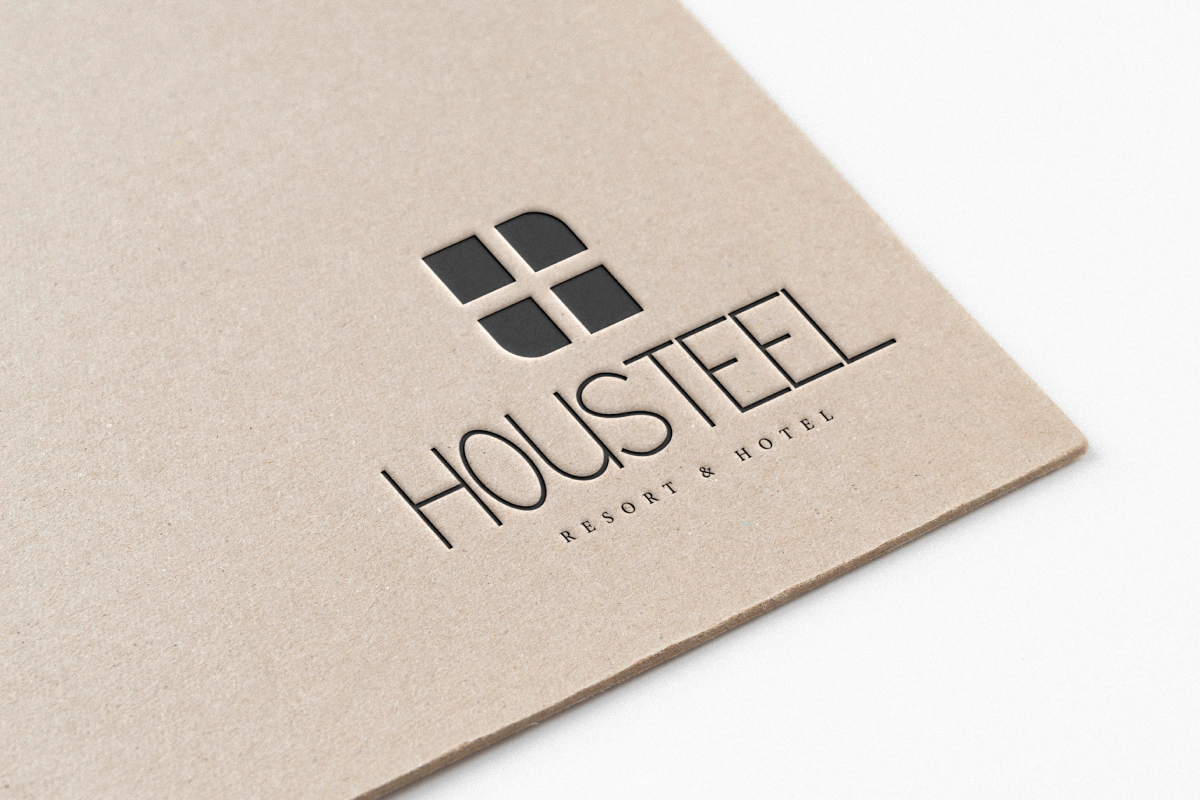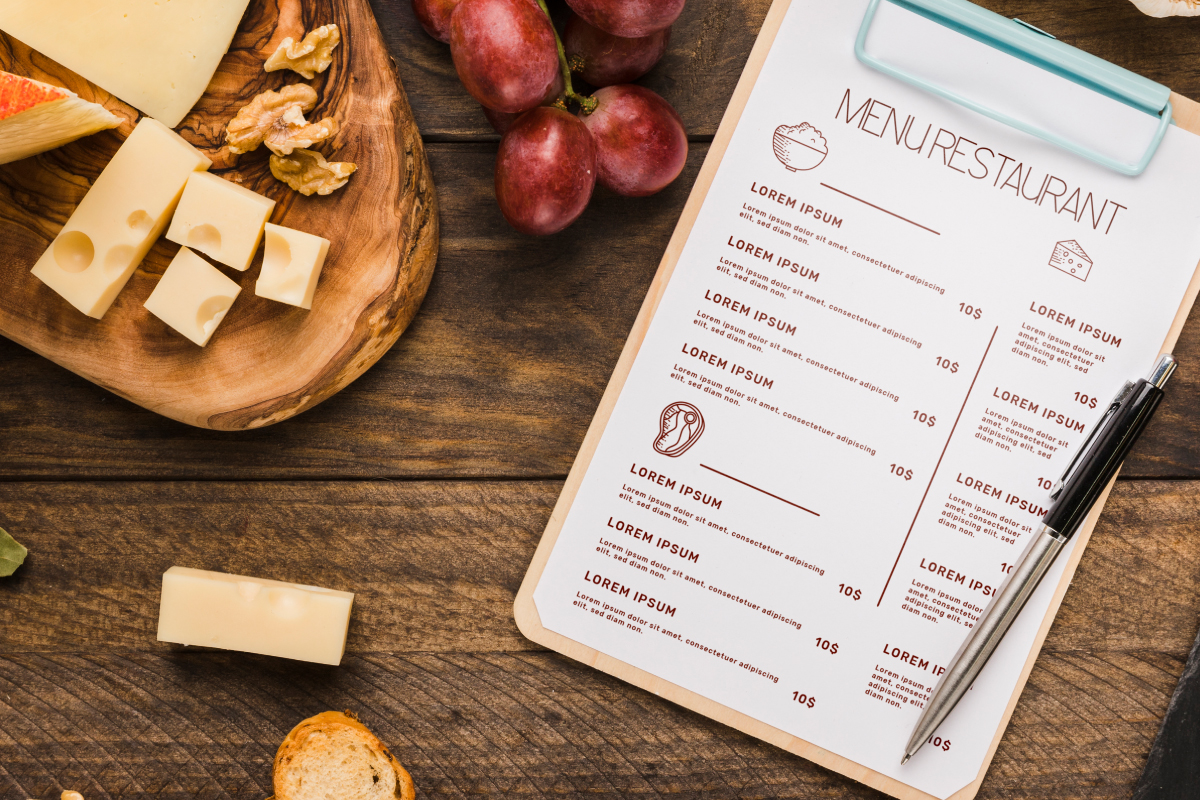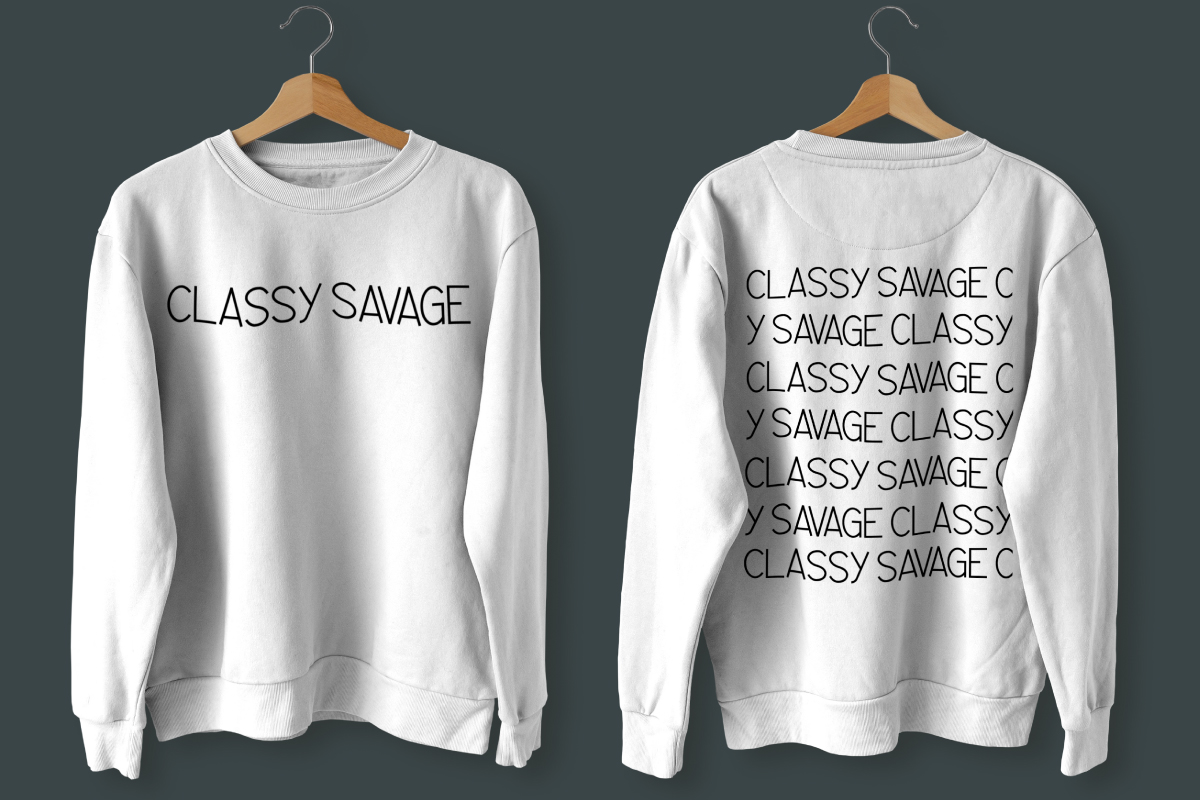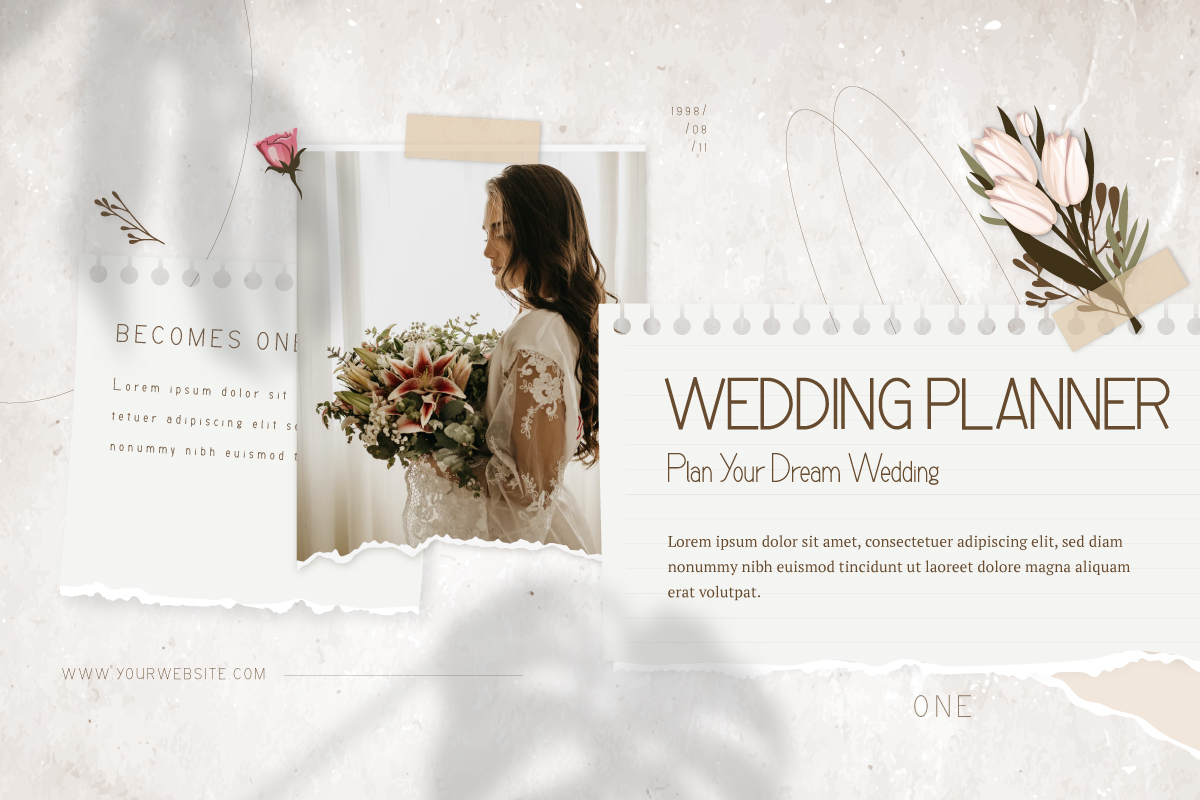
Checklist Sans Serif Font is a unique sans serif display font with four style variations exclusively designed by NoahType. This font is made into four different modern styles, there are Regular, Italic, Bold, and Bold Italic. It would be the best choice for many industries, such as accessories, advertisement, boutique, clothing brand, cosmetic, event planner, florist, hotel, printing, publishing, real estate, restaurant, and more!
Checklist Font include full set of Uppercase and Lowercase Basic Characters, Numerals and Punctuation. Despite having a minimalist look, this font can be matched with various types of fonts that will create perfection. Use this font for various types of projects, such as invitations, labels, mockup design, restaurant menu, screen printing, signage, stationery, website, etc.